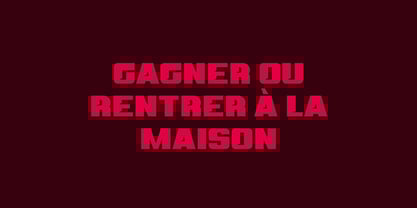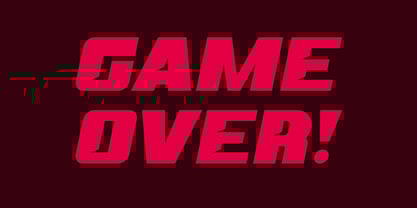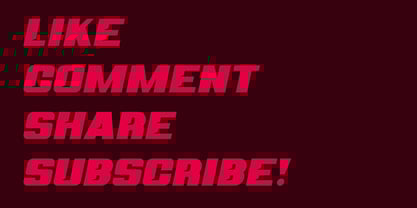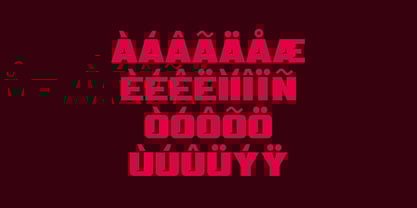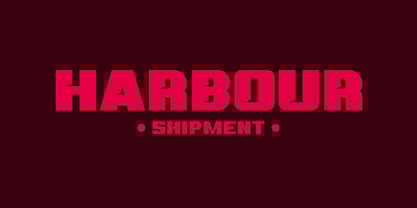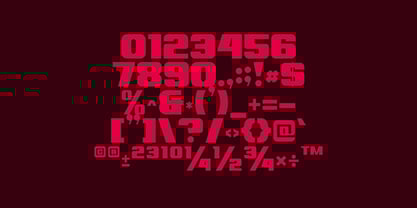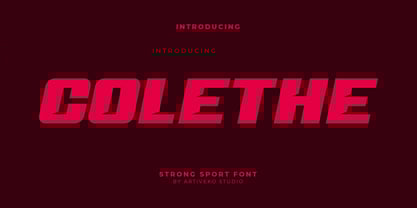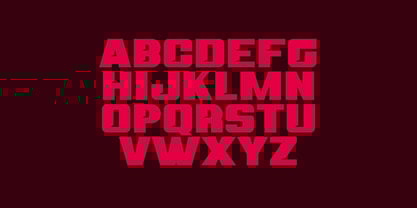
Colethe
by Artiveko
The Colethe Font Family was designed by Iwan Alwan and published by Artiveko. Colethe contains 2 styles and family package options.
Colethe is a strong bold sans serif font designed with powerful letterforms that exude confidence and impact. Perfect for branding, sports, posters, and headline designs, Colethe delivers a modern and commanding aesthetic. Featuring multilingual support, ligatures, and alternates, this versatile typeface ensures readability and strength, making it an ideal choice for projects that demand boldness and presence.